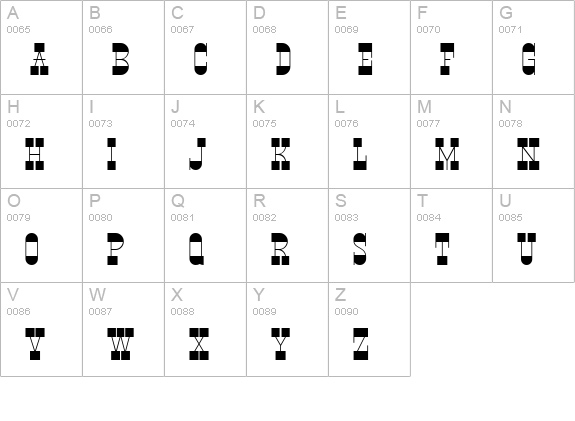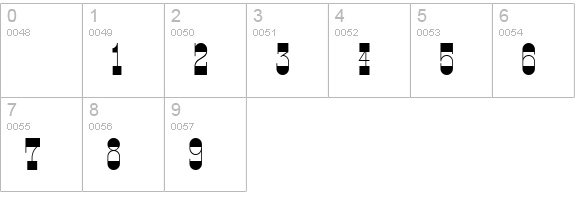
PonsonbyNF Font Details
PonsonbyNF font is a stunning display typeface that exudes elegance and sophistication. With its sleek lines and modern aesthetic, this font is perfect for adding a touch of class to any design project. The unique letterforms of PonsonbyNF are both eye-catching and versatile, making it ideal for a wide range of applications, from branding to editorial design. What sets PonsonbyNF apart is not only its exceptional design, but also the fact that it is completely free to download. Available exclusively at FontsMarket.com, this font offers designers and creatives an opportunity to elevate their work without breaking the bank. So whether you're working on a personal project or a client commission, PonsonbyNF is the perfect choice for adding a touch of sophistication to your designs. Download it today and see the difference it can make!